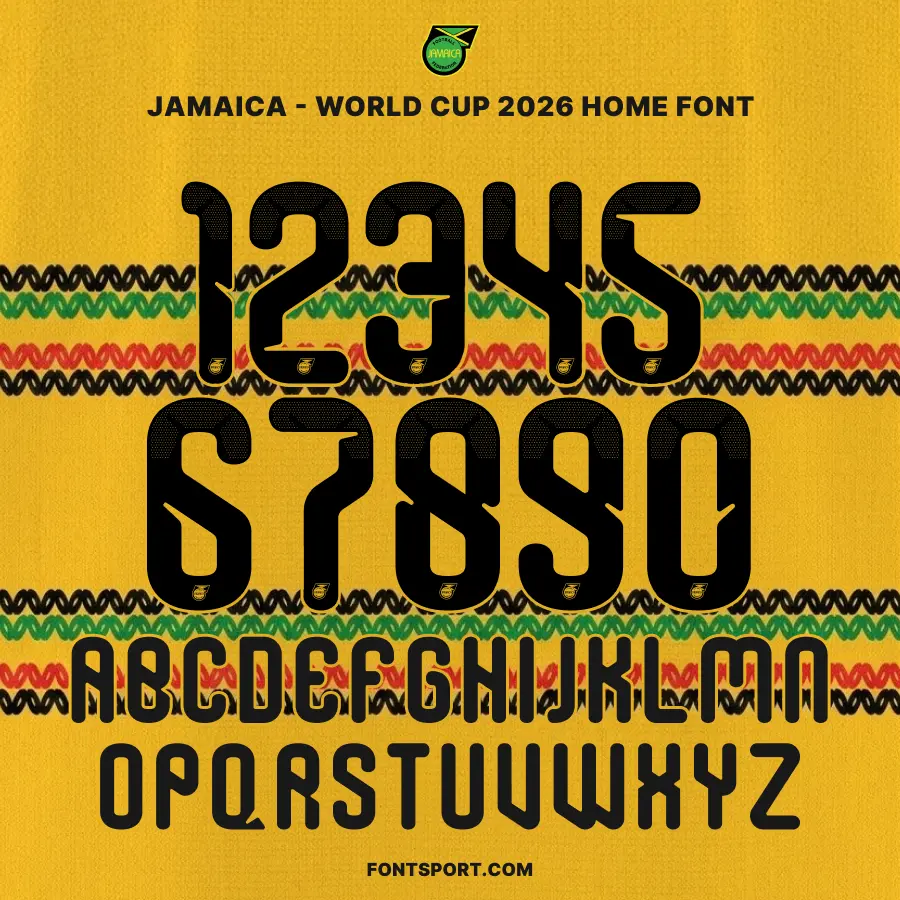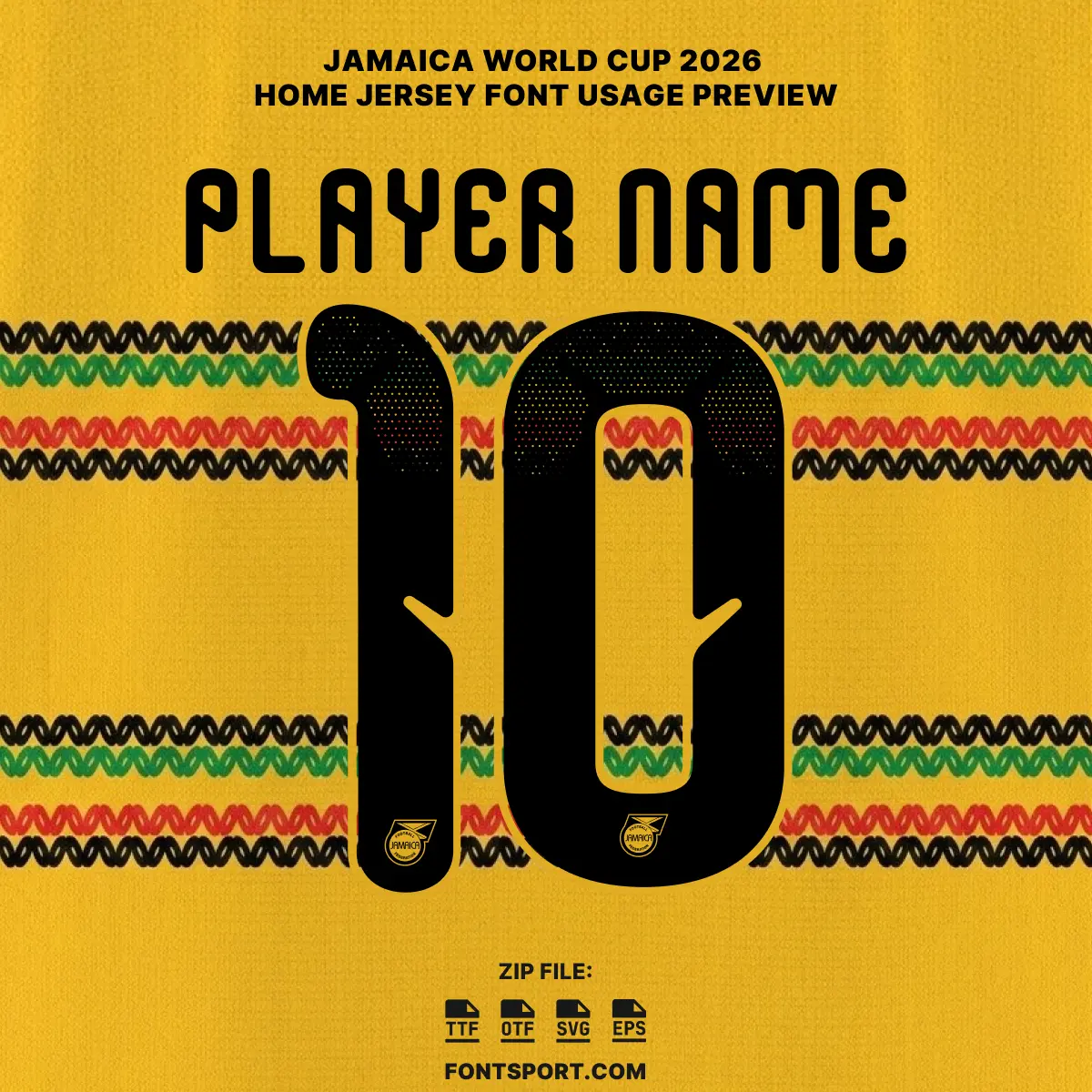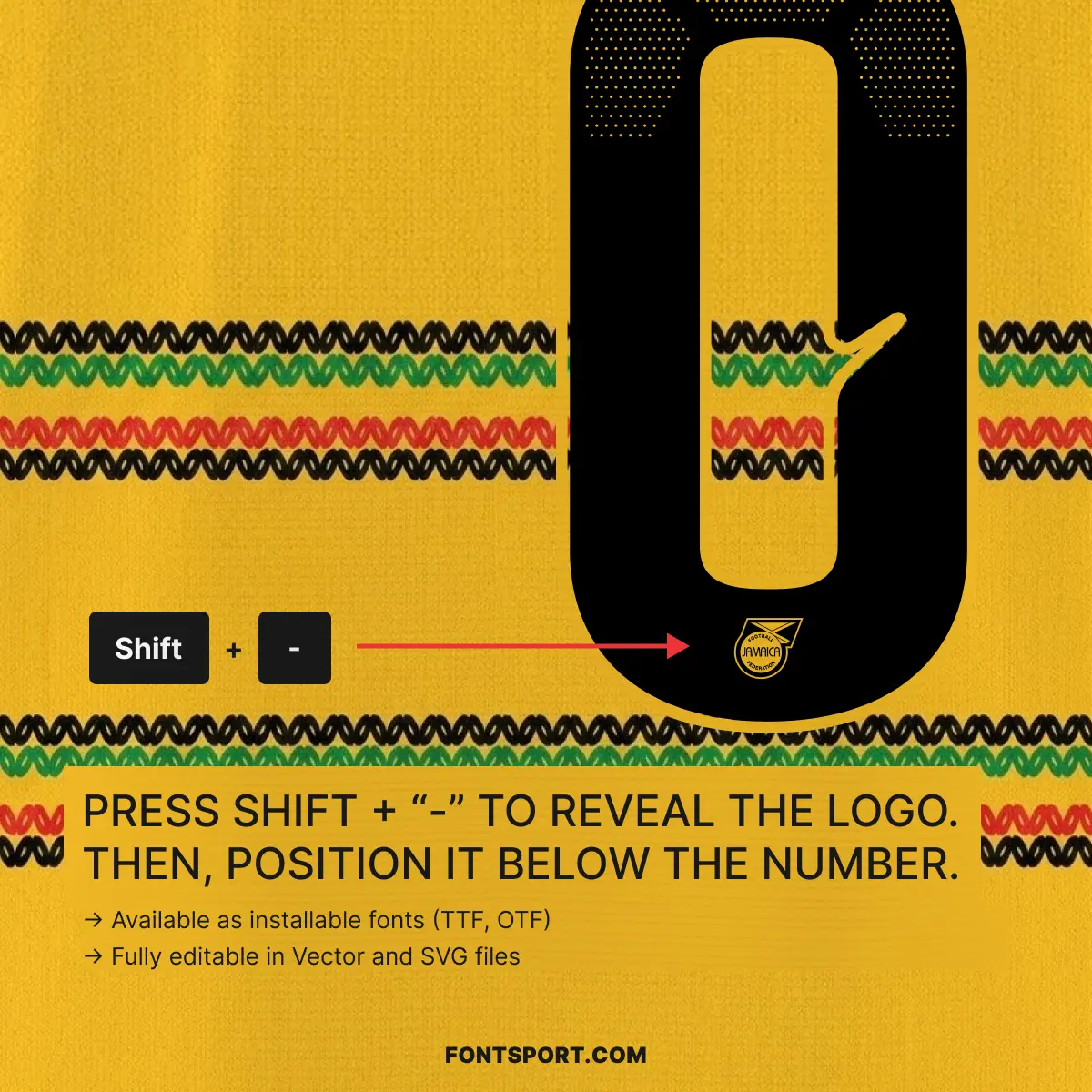
Jamaica World Cup Home 2026 Font Kit – Football Typeface
The Jamaica World Cup Home 2026 Font Kit brings the vibrant “Reggae Boyz” rhythm and culture directly to your design projects. This font captures the bold, energetic aesthetic of the upcoming tournament, featuring a unique typography style that blends modern athleticism with Jamaica’s rich heritage. Whether you are designing professional sports apparel or digital fan content, this kit provides a standout look that is both stylish and authoritative.
• Complete Character Set: Features the full A–Z uppercase alphabet and a stylized 0–9 number set designed for high impact on jersey backs.
• Extra Multilingual Alphabet: Full support for accented characters (Ä, Á, È, Î, Ë, etc.), ensuring you can represent international player names accurately.
• Integrated Team Logo: Add an authentic touch to your jerseys by pressing Shift + “-“ to reveal the Jamaica-inspired logo typography.
This bundle is ideal for creating personalized football kits, social media graphics, or unique merchandise that celebrates the spirit of Caribbean football.
• Cultural Identity: The design mirrors the “crocheted” and “textile” energy of the newest kits, offering a tactile and modern feel.
Full set of Jamaica World Cup 2026 Home font featuring rounded black numbers 0-9 and A-Z alphabet on a yellow background, Bob Marley colors and with traditional knit patterns.